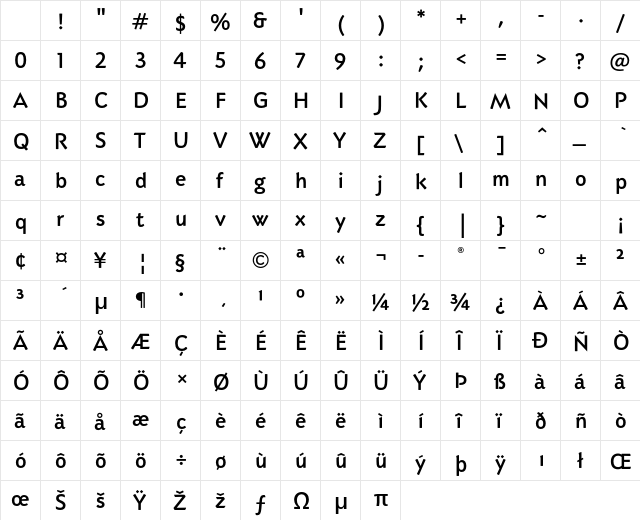
Complete Adderville ITC Std Medium glyph index. Displaying only characters natively supported by Adderville ITC Std Medium font.
Adderville ITC Std is a composed and adaptable typeface that performs quietly and consistently across a wide range of design contexts.